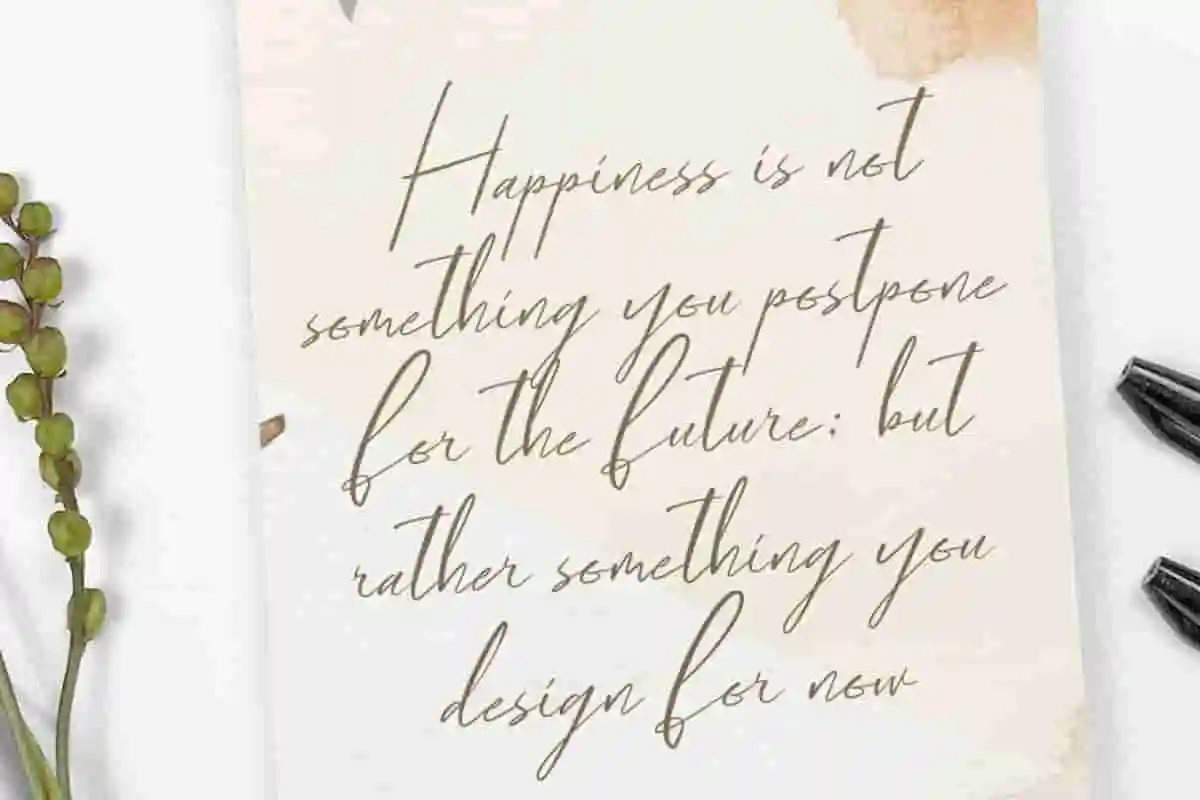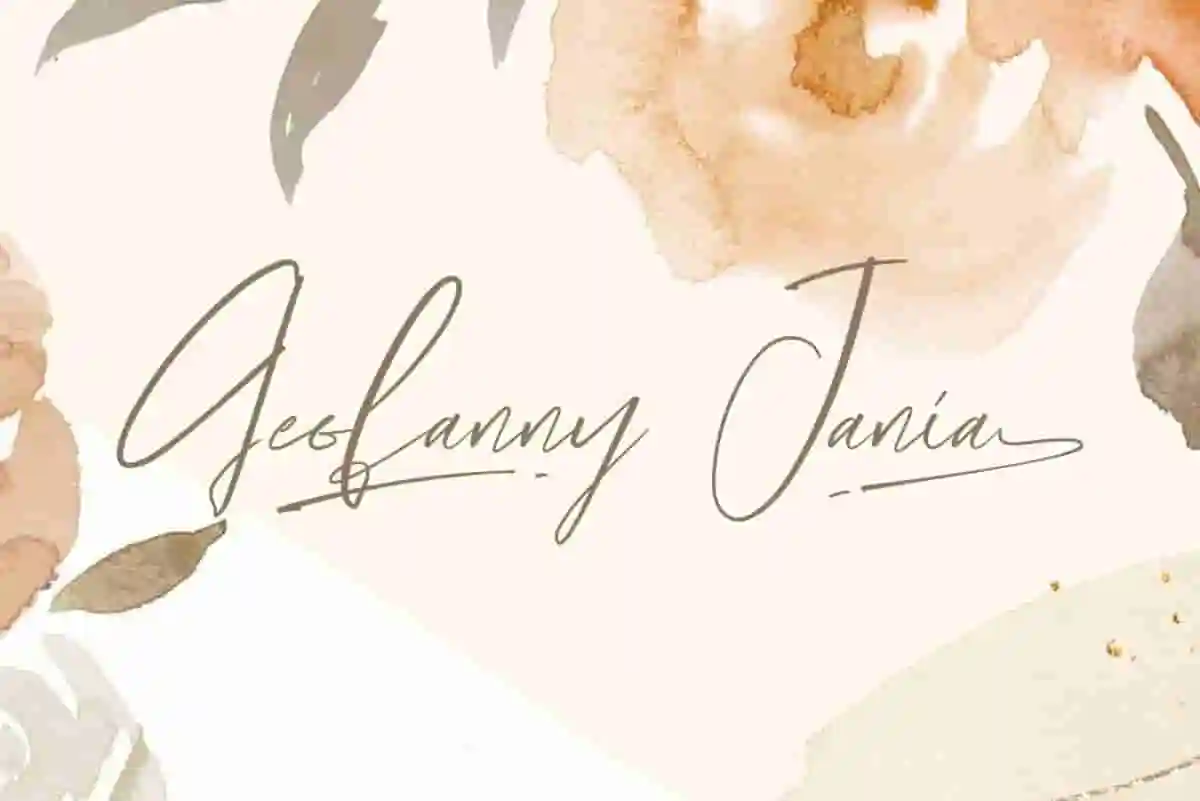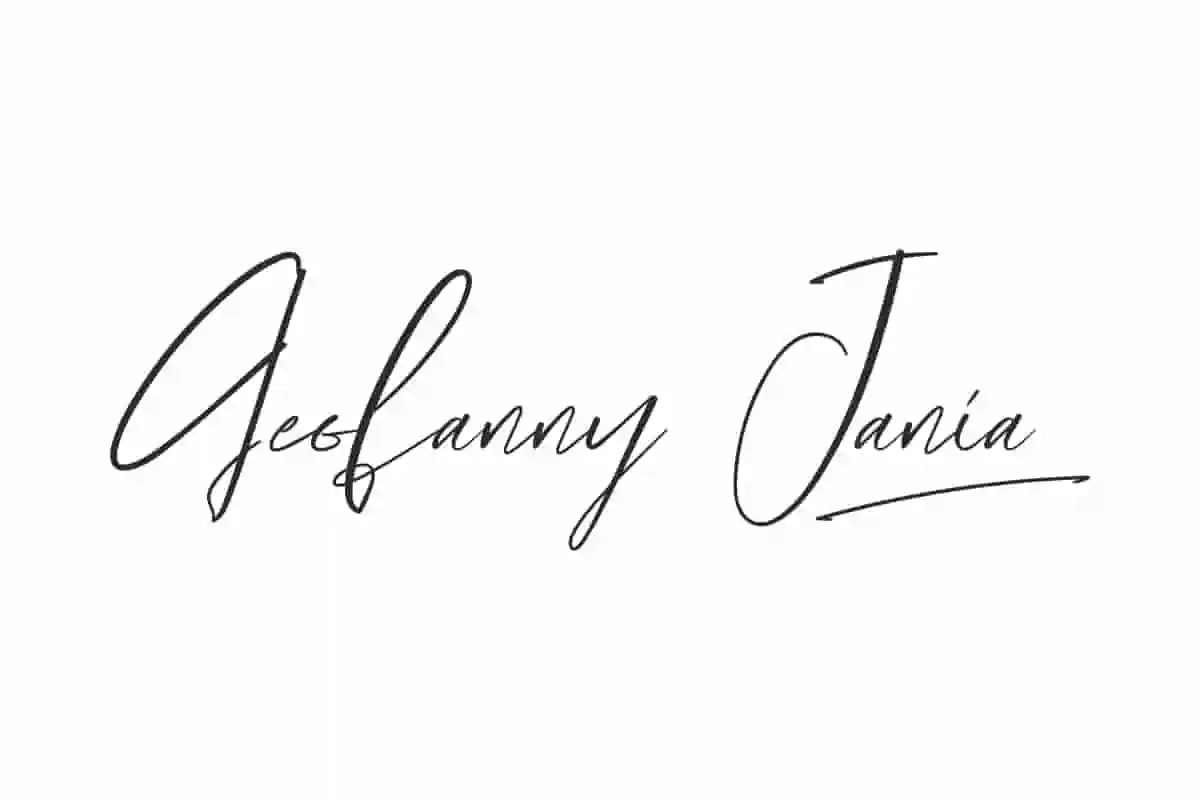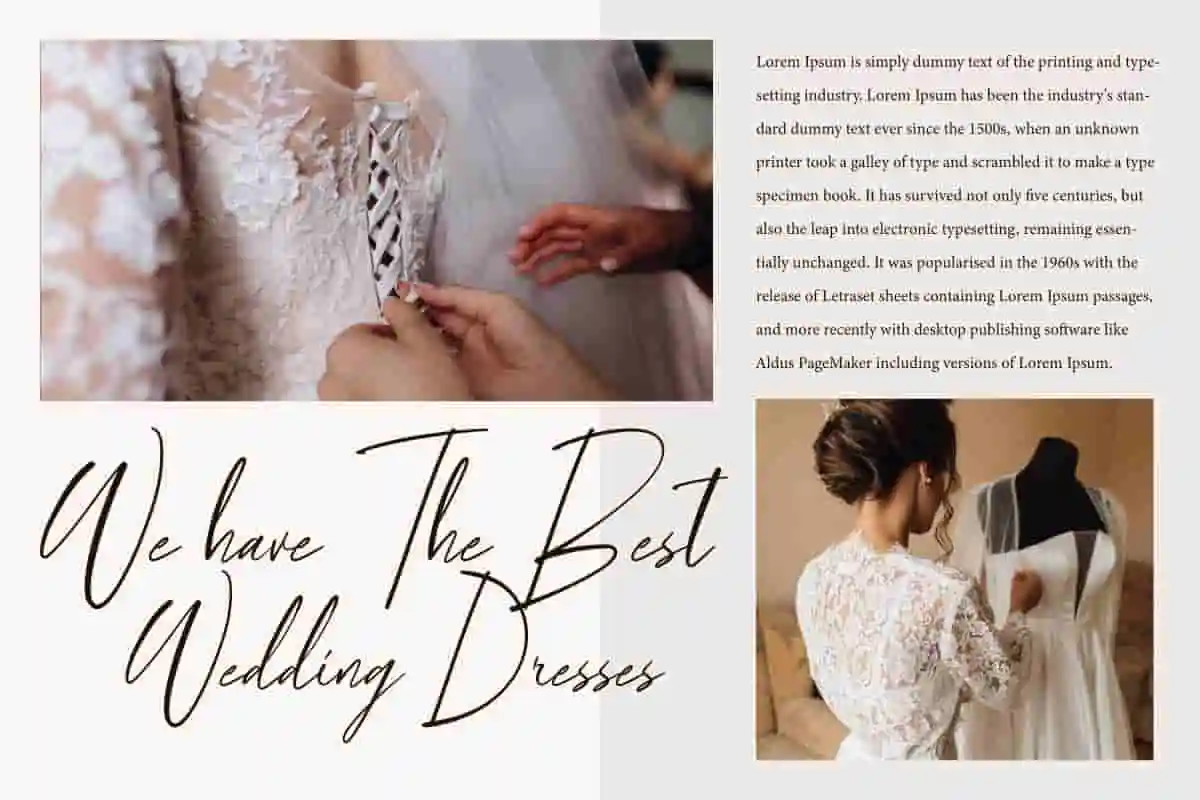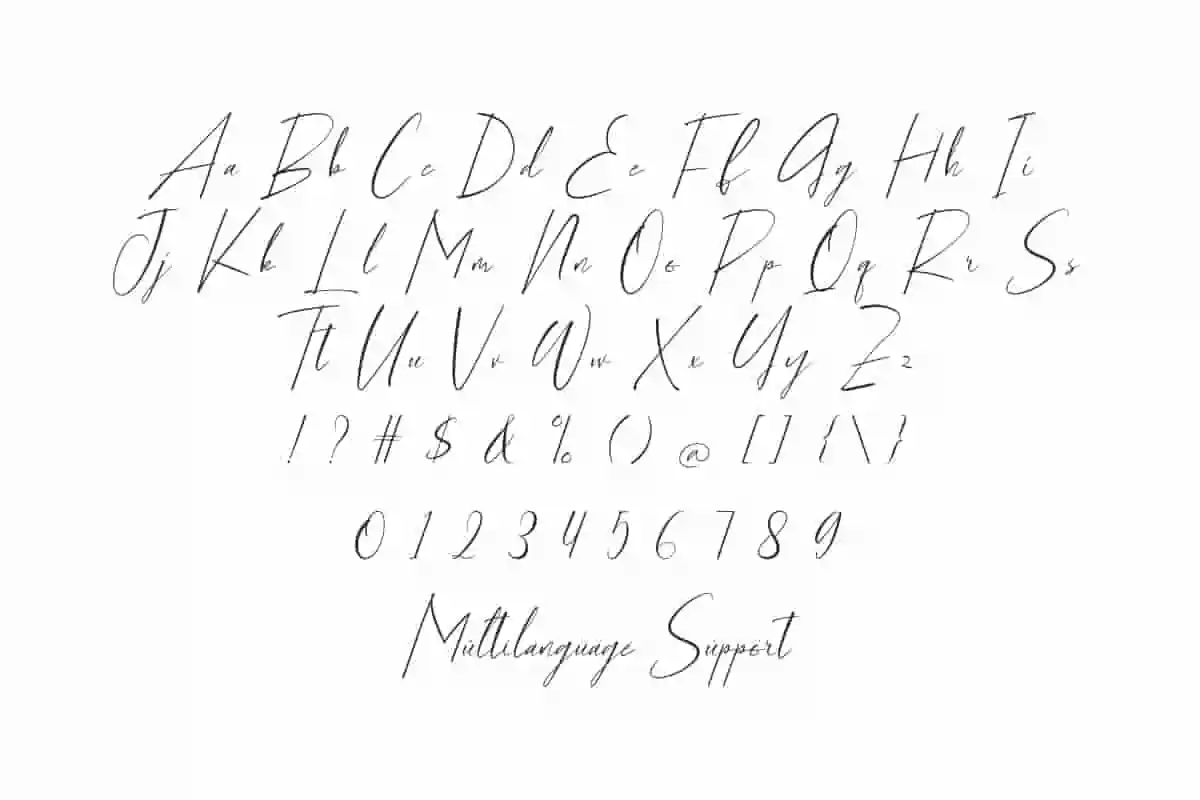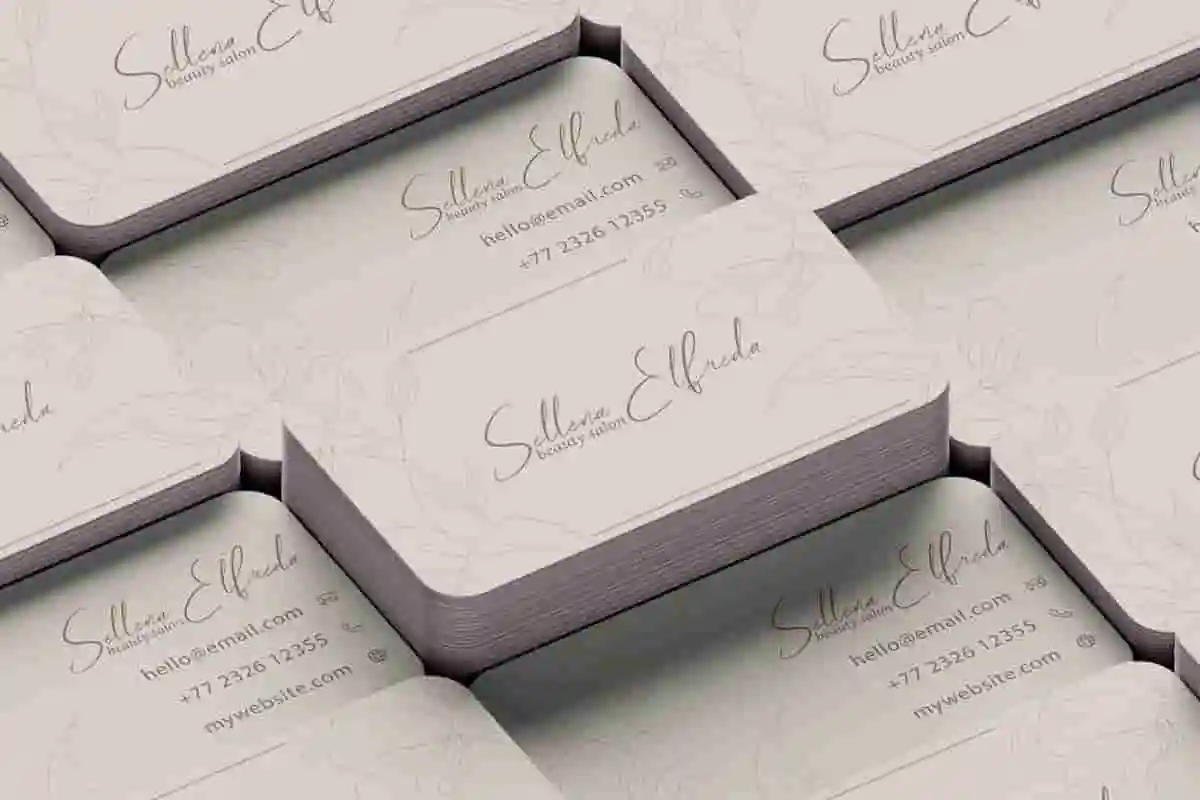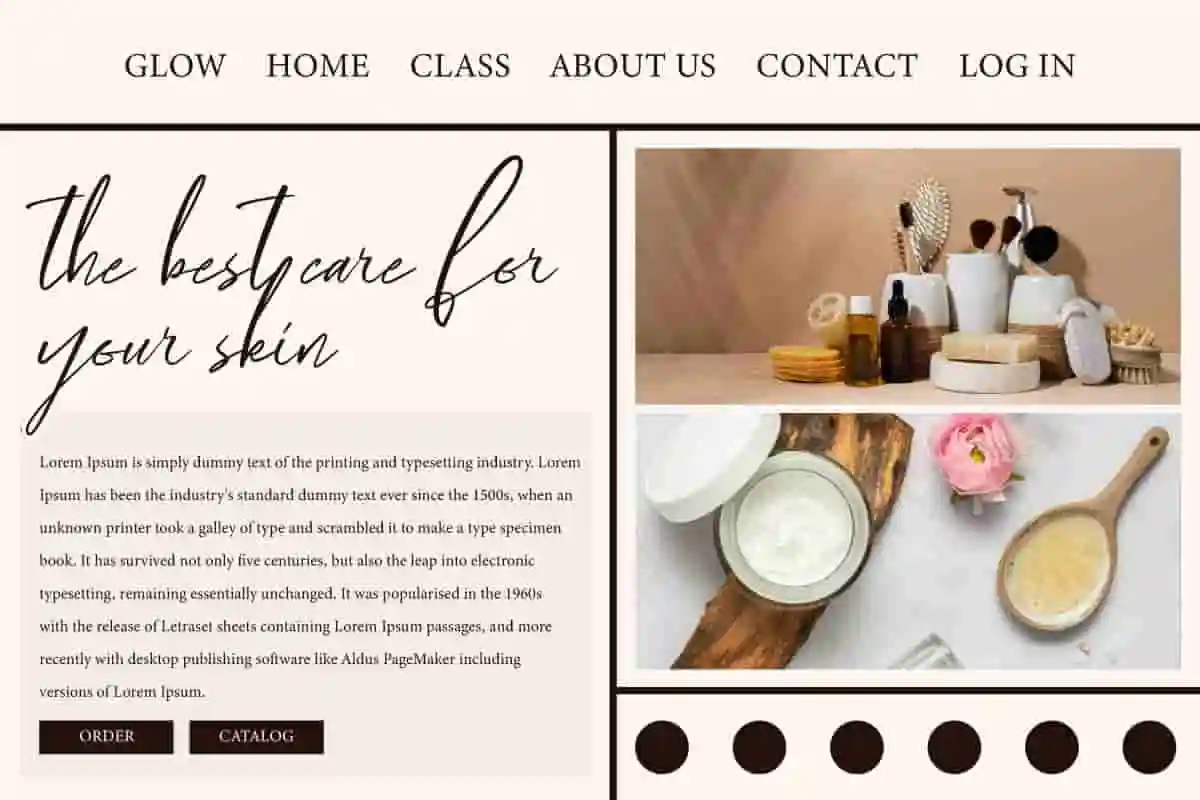
Geofanny Jania Font is a classy signature handwriting font with a casual touch. Make your projects feel special with this font collection!
Geofanny Jania Font is a classy signature handwriting font with a casual touch, making it look like a natural handwriting. Perfect for banners, blogs, brochure, covers, custom mug, flyer, greeting card, headers, label, logos, mockup, social media post, stationery, sticker, template, title, quotes, website, and much more.
Geofanny Jania Font includes a complete set of Basic Uppercase and Lowercase Characters, Numbers, Symbols, Ligature and Swoosh. You can easily combine different characters to create the look you want! Use this font for accessories and gifts, author, boutique, fashion, florist, graphic designer, handicraft, home furniture, photography, pottery, wedding, writer, etc.